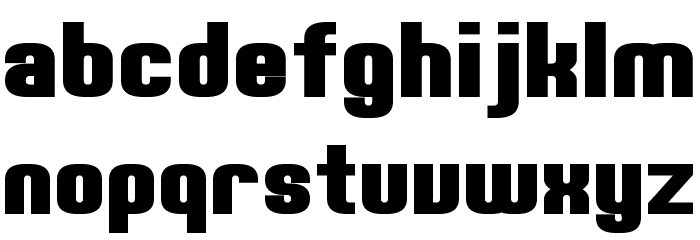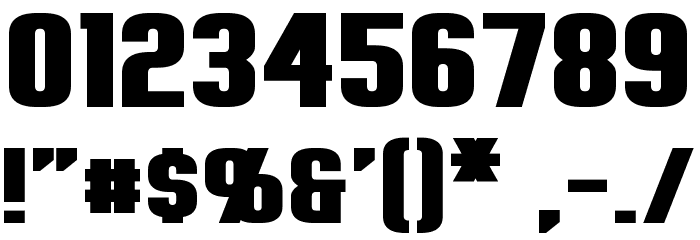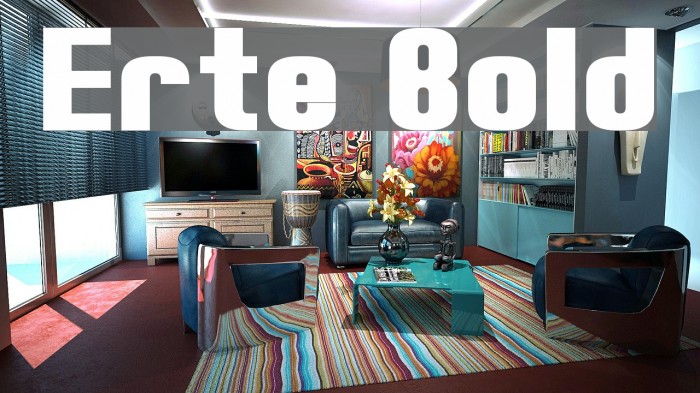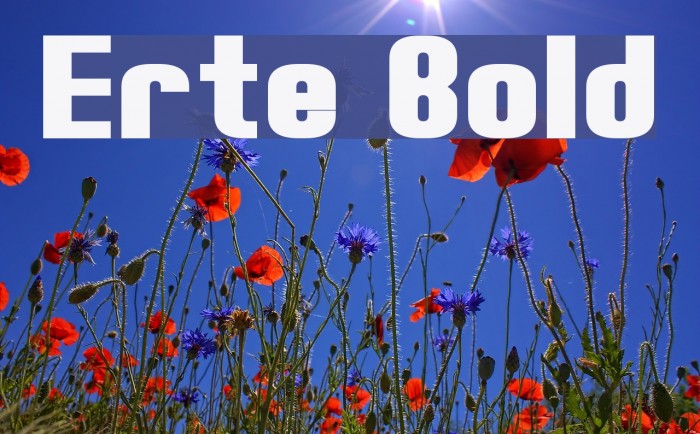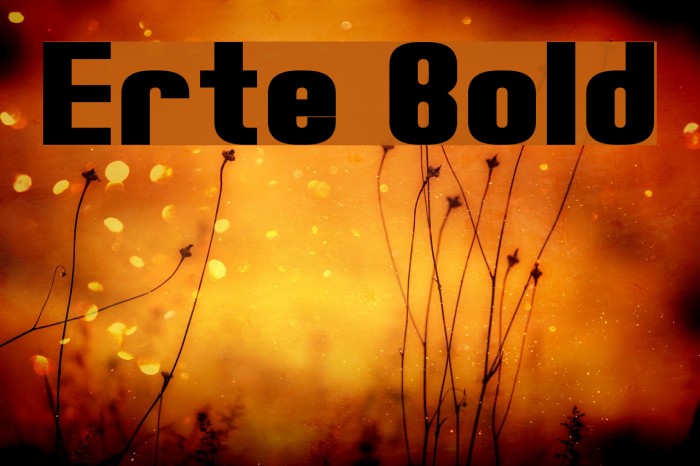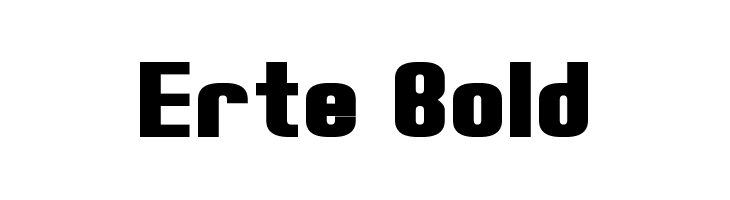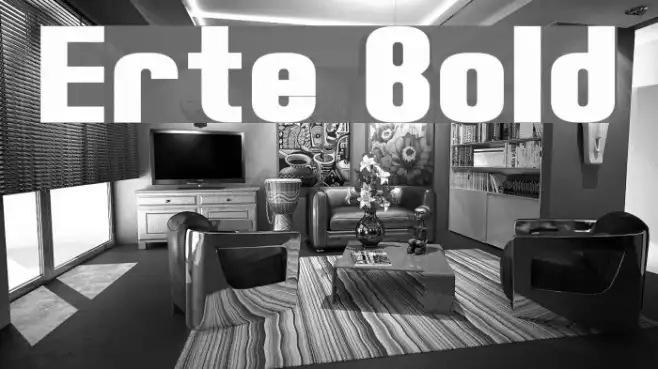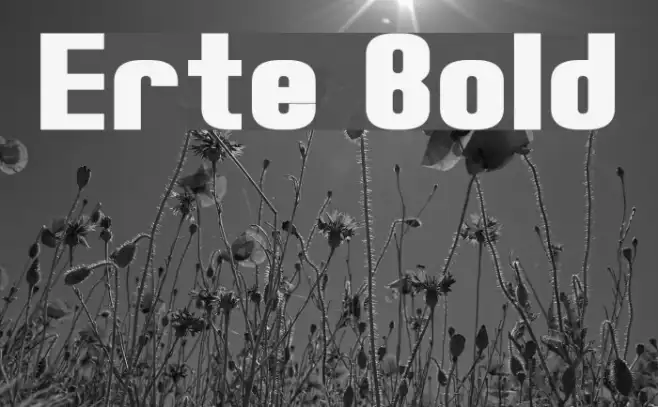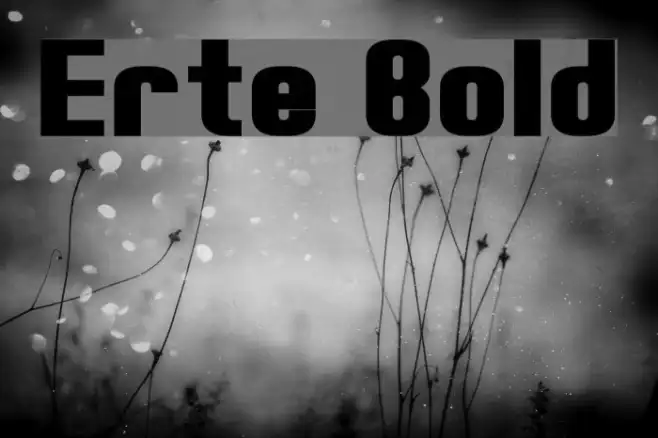
Erte Bold Font
This font features a bold and impactful design with a strong geometric structure. The characters are uniformly thick, providing a sense of stability and strength. The uppercase and lowercase letters maintain a consistent width, contributing to a cohesive appearance. The numbers and special characters are designed to match the boldness of the alphabet, ensuring uniformity across all text elements. The font's style is reminiscent of Art Deco influences, with a modern twist that makes it suitable for contemporary designs. Its clear and legible form makes it ideal for attention-grabbing headlines and titles.
A bold, geometric font with Art Deco influences, perfect for impactful headlines.
- Proposed Projects: Ideal for branding, posters, and signage where a strong visual impact is needed.